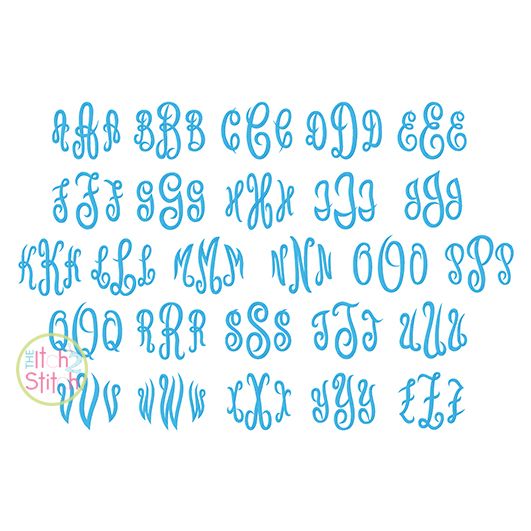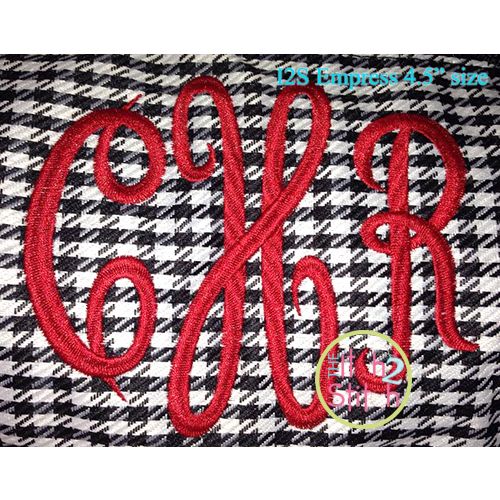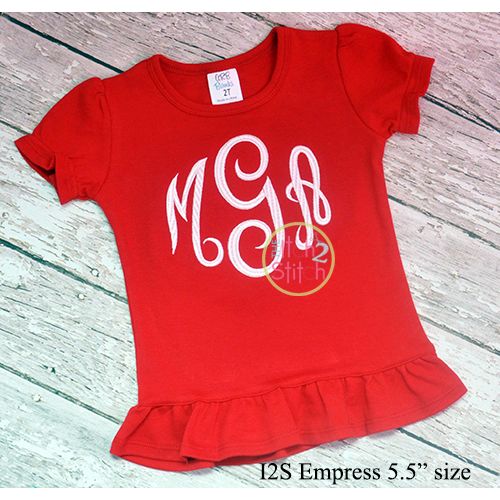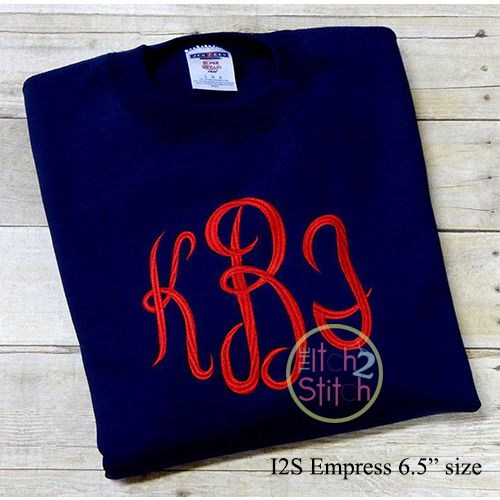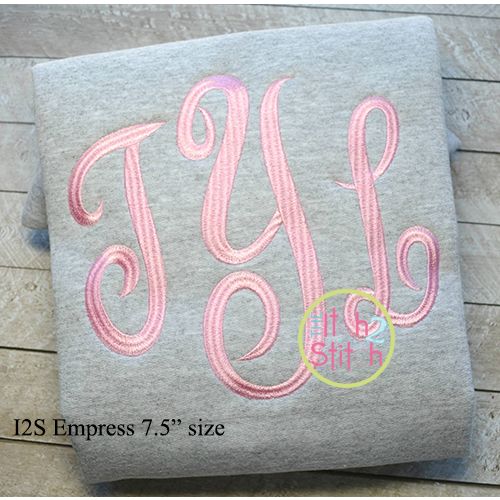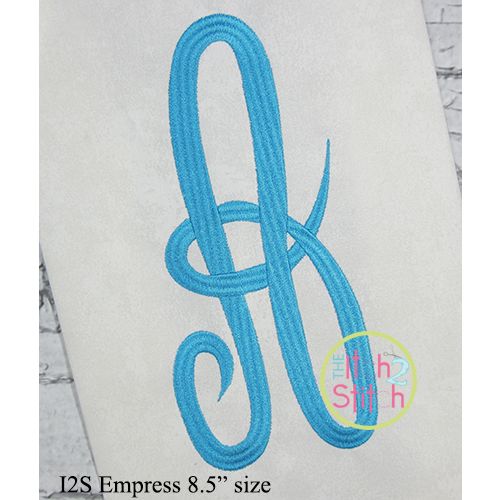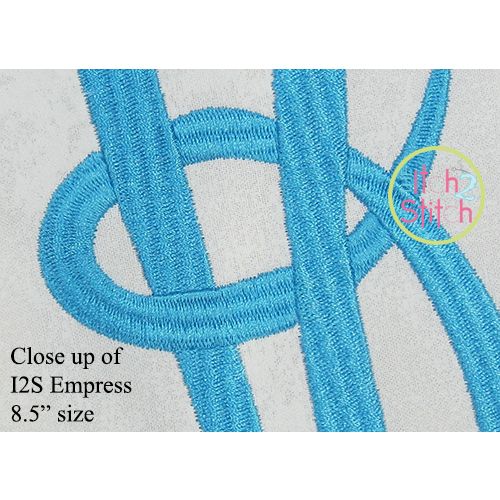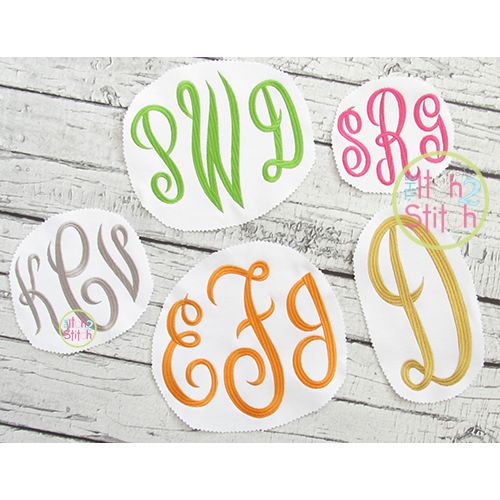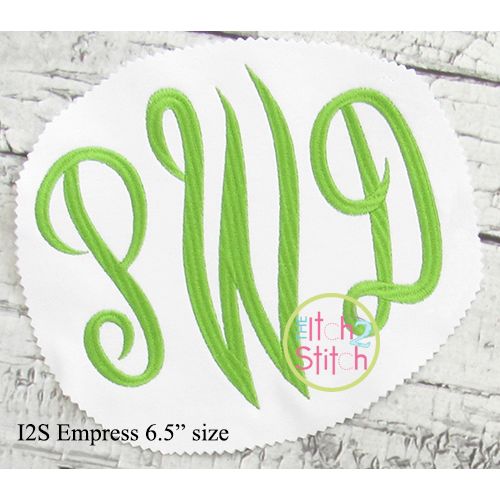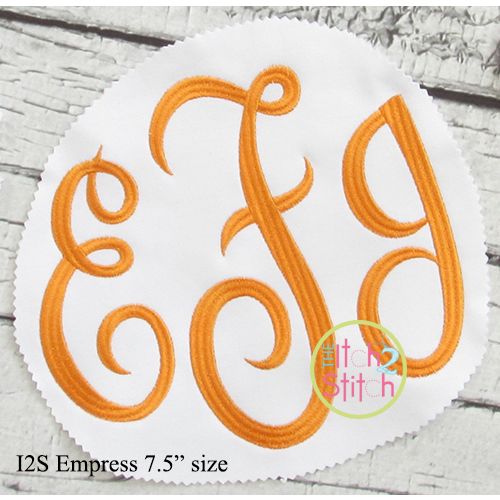
You will receive all left/middle/right A-Z letters (78 files) in five sizes. This monogram features a decorative fill stitch pattern. Please note these sizes do NOT fit in the 4x4 hoop; smaller satin stitch sizes are sold separately.